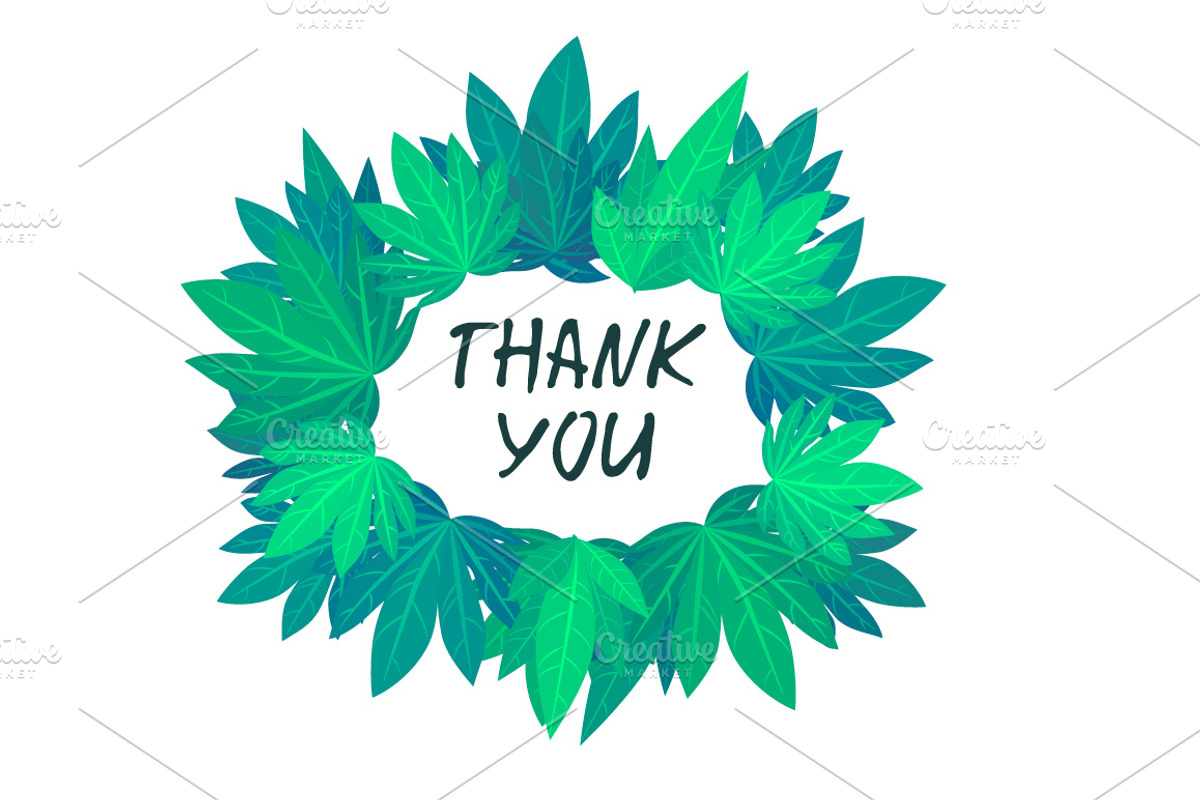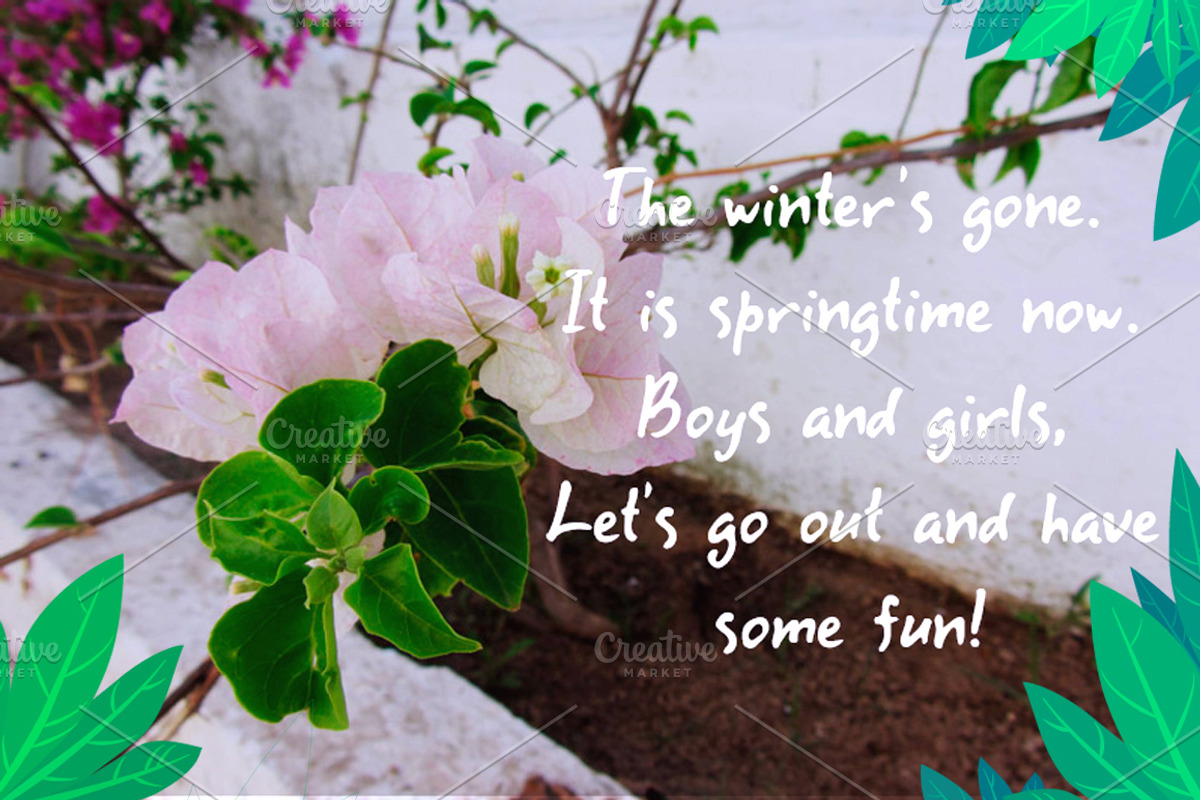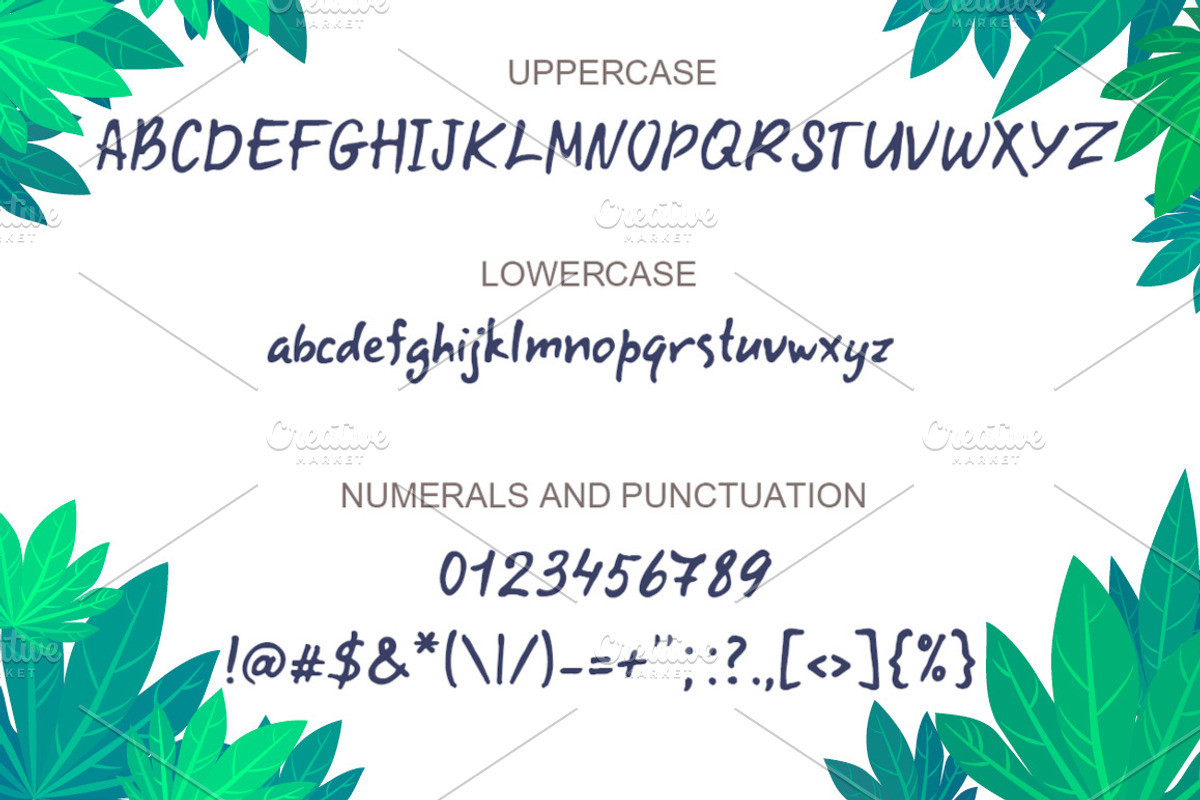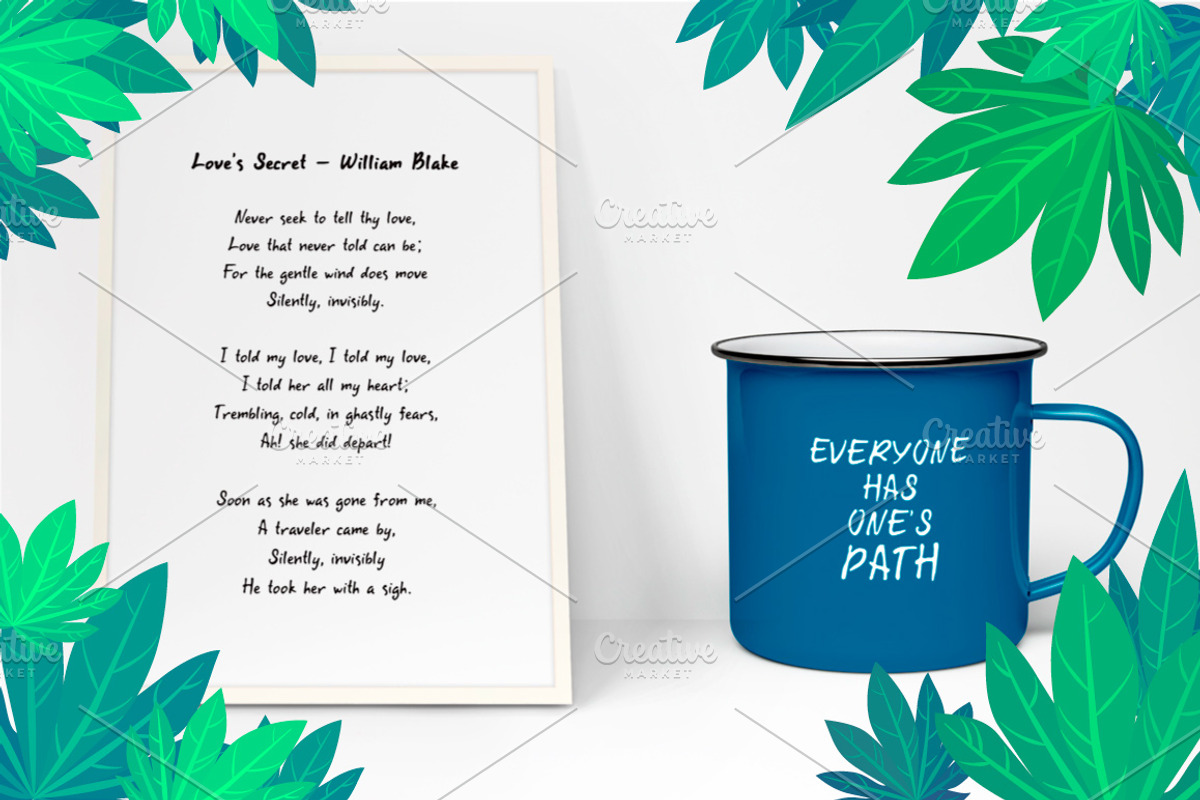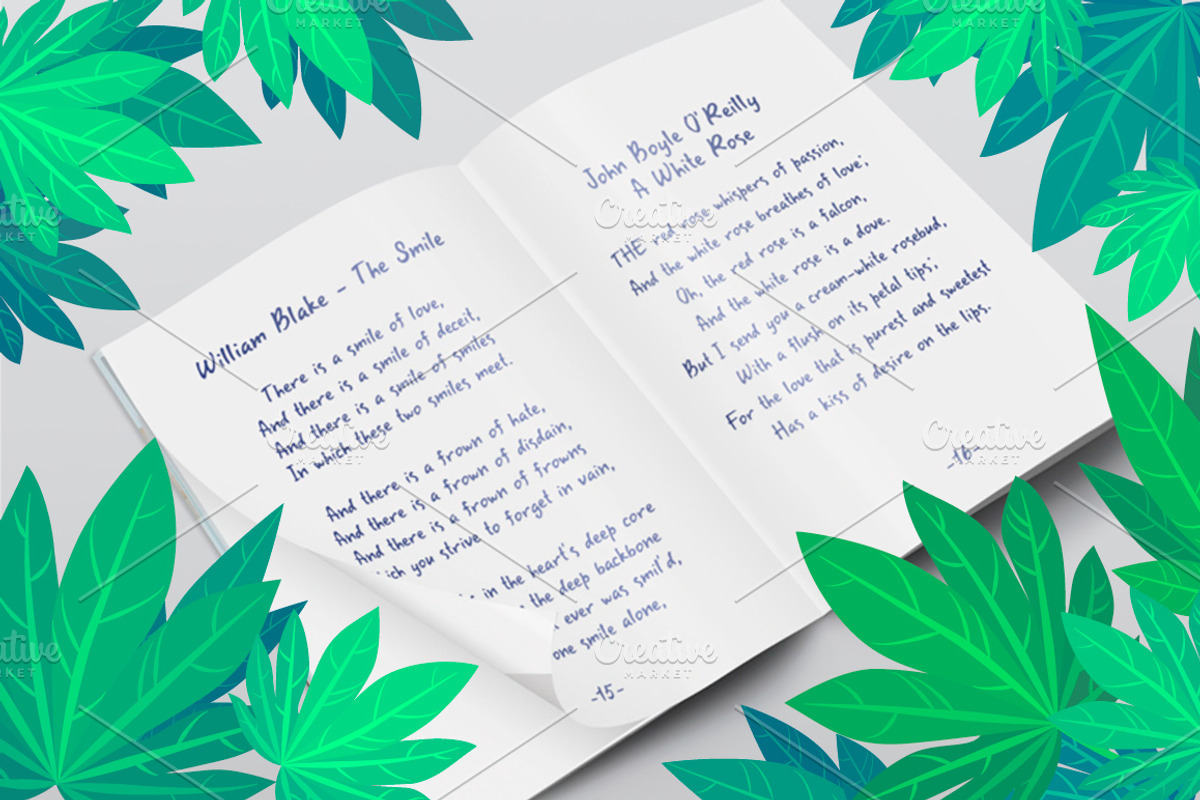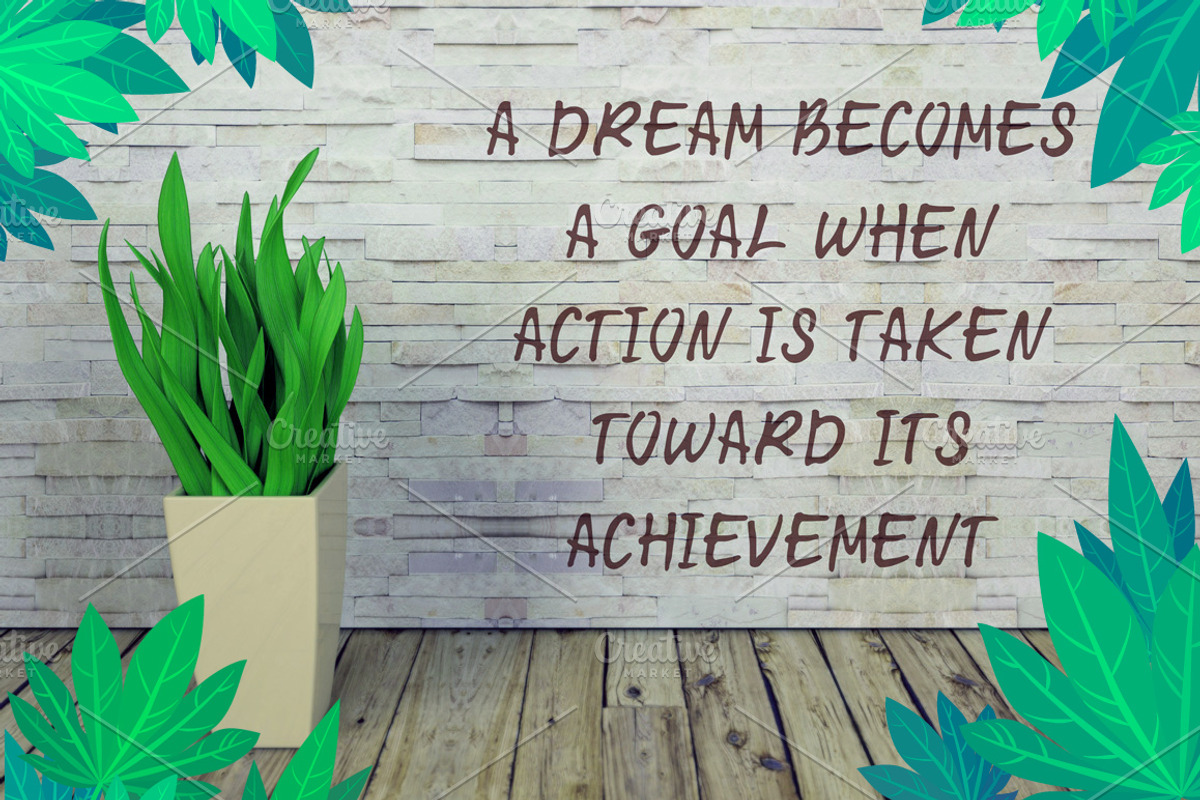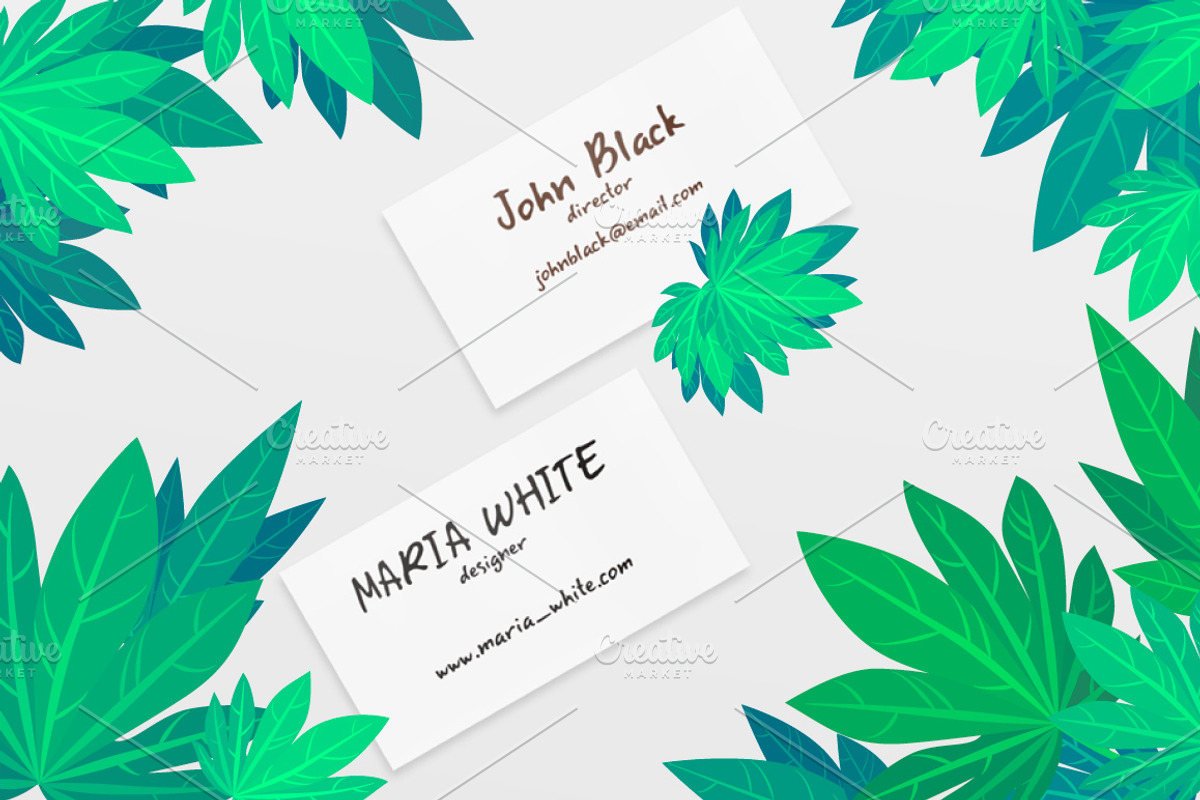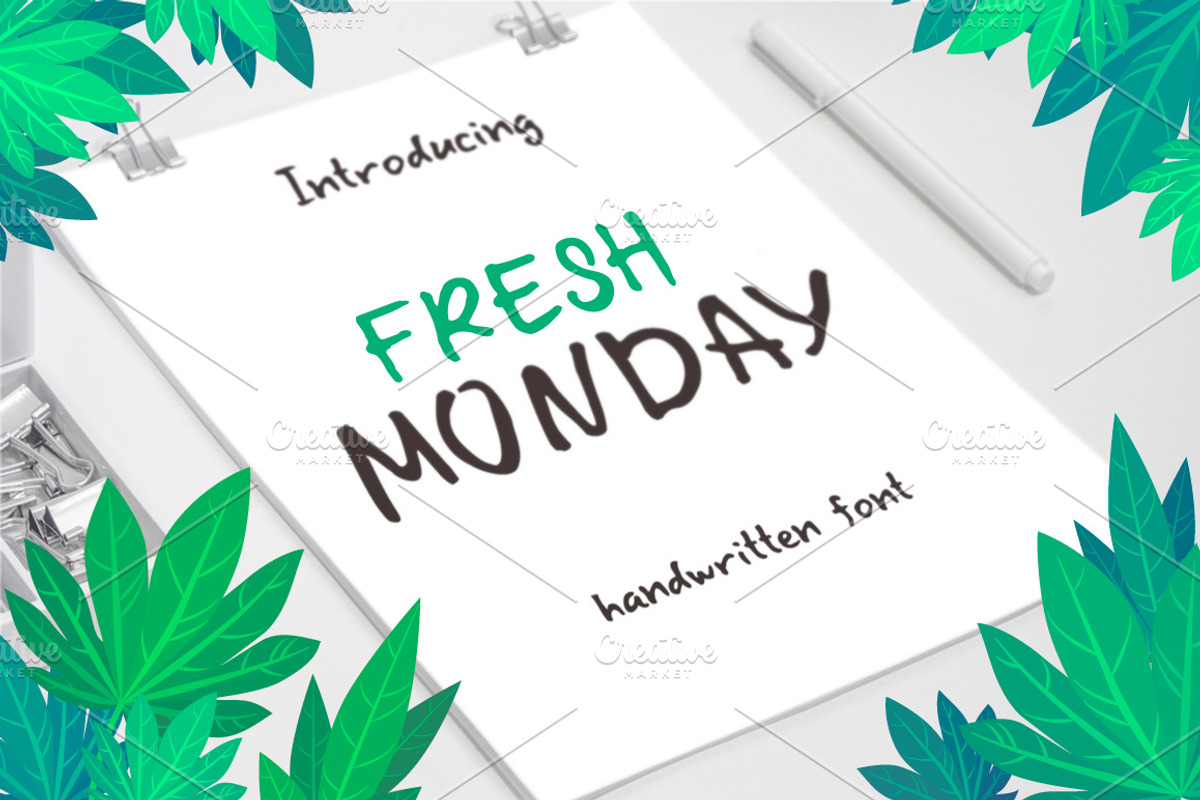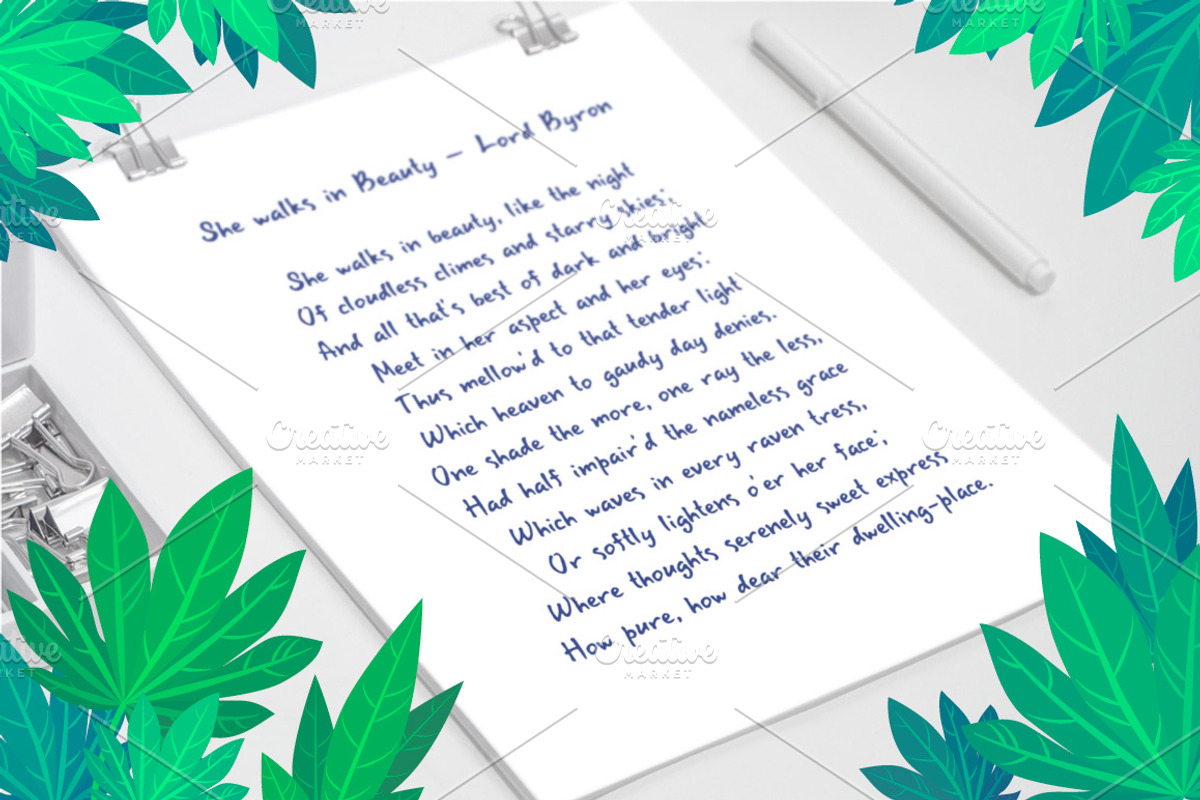
Fresh Monday font
I'm happy to introduce a new font - Fresh Monday. It is the easy, simple, natural handmade font. Fresh Monday can be used in different projects and where necessary imitation of handwriting.